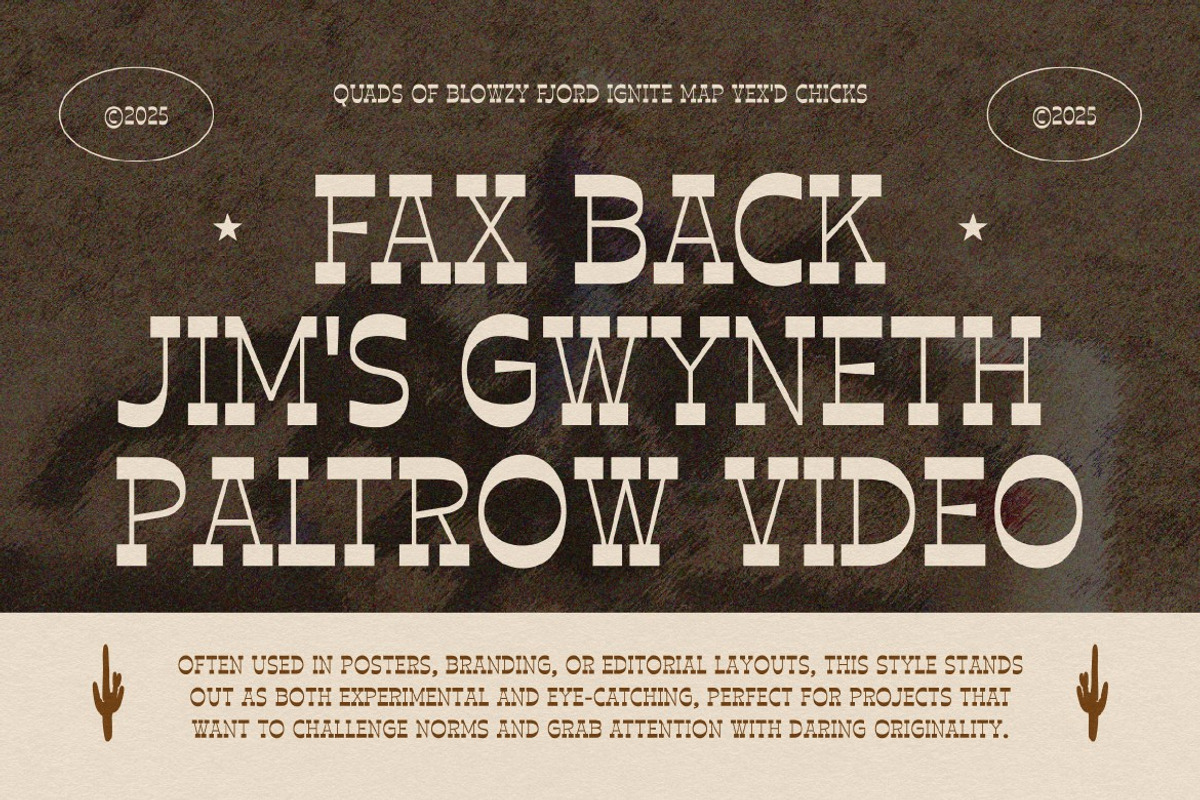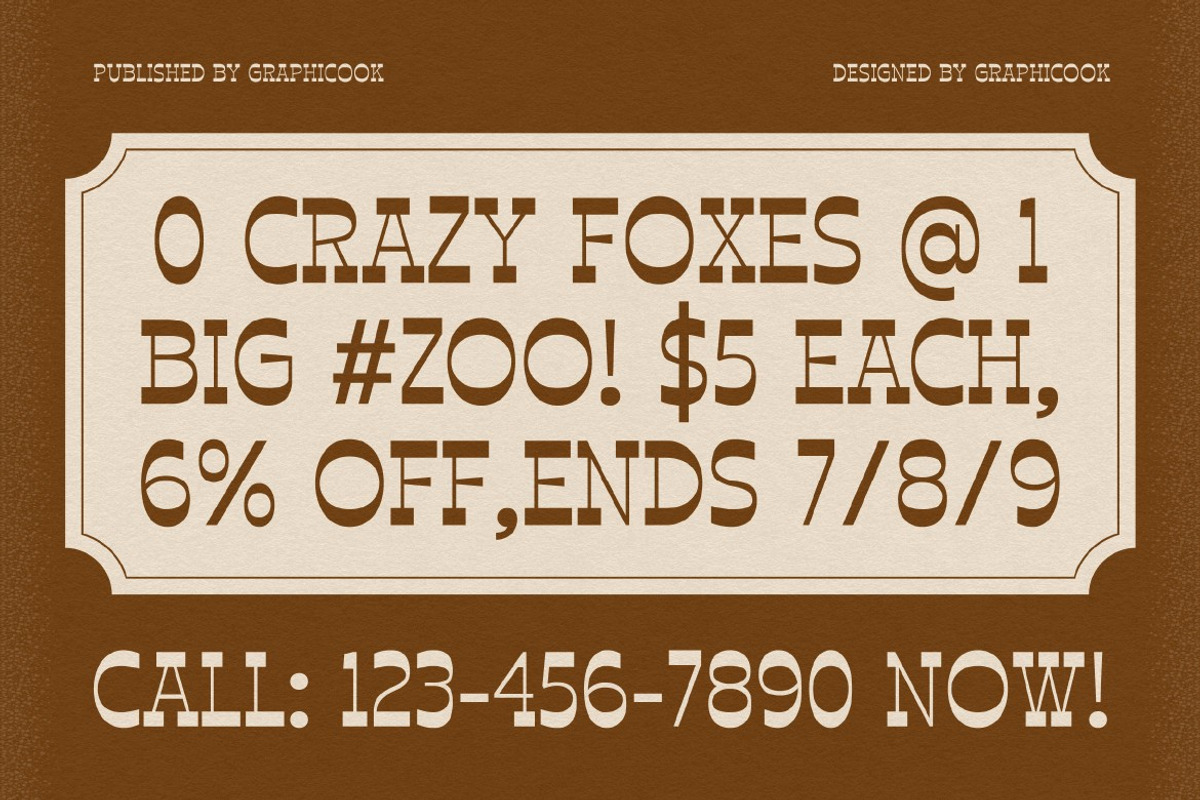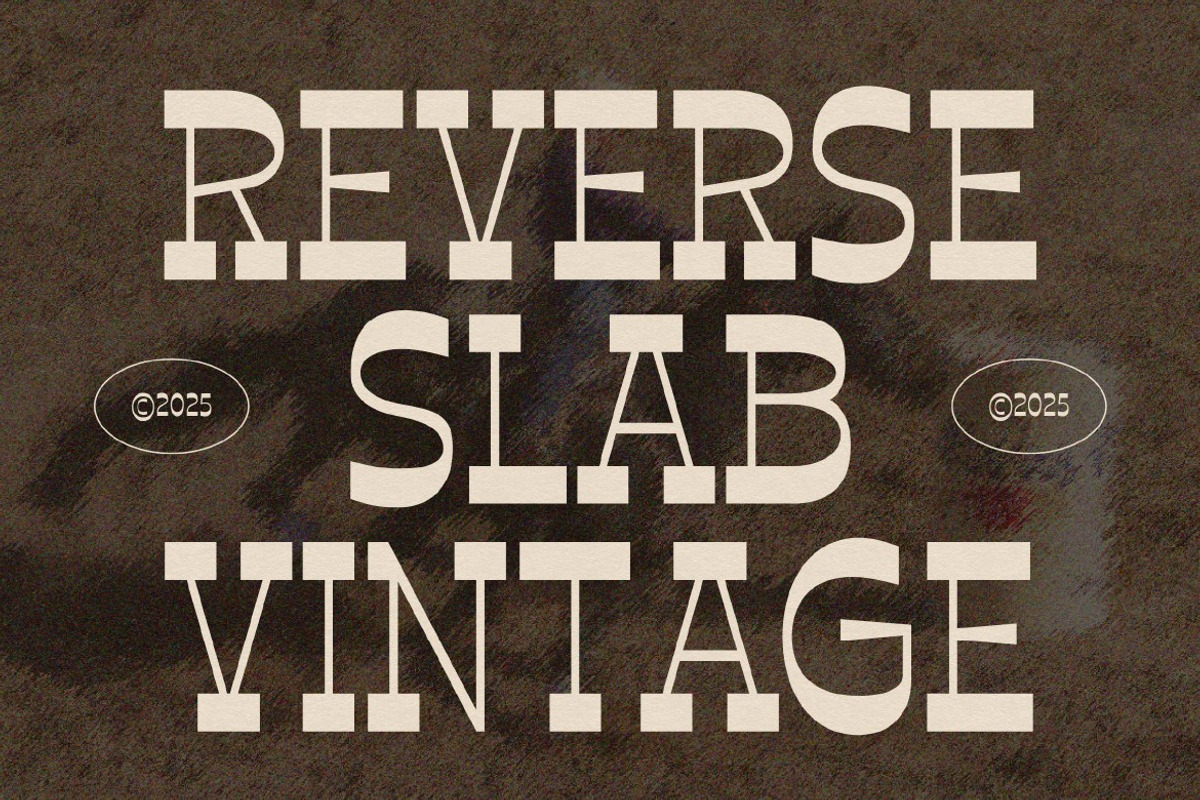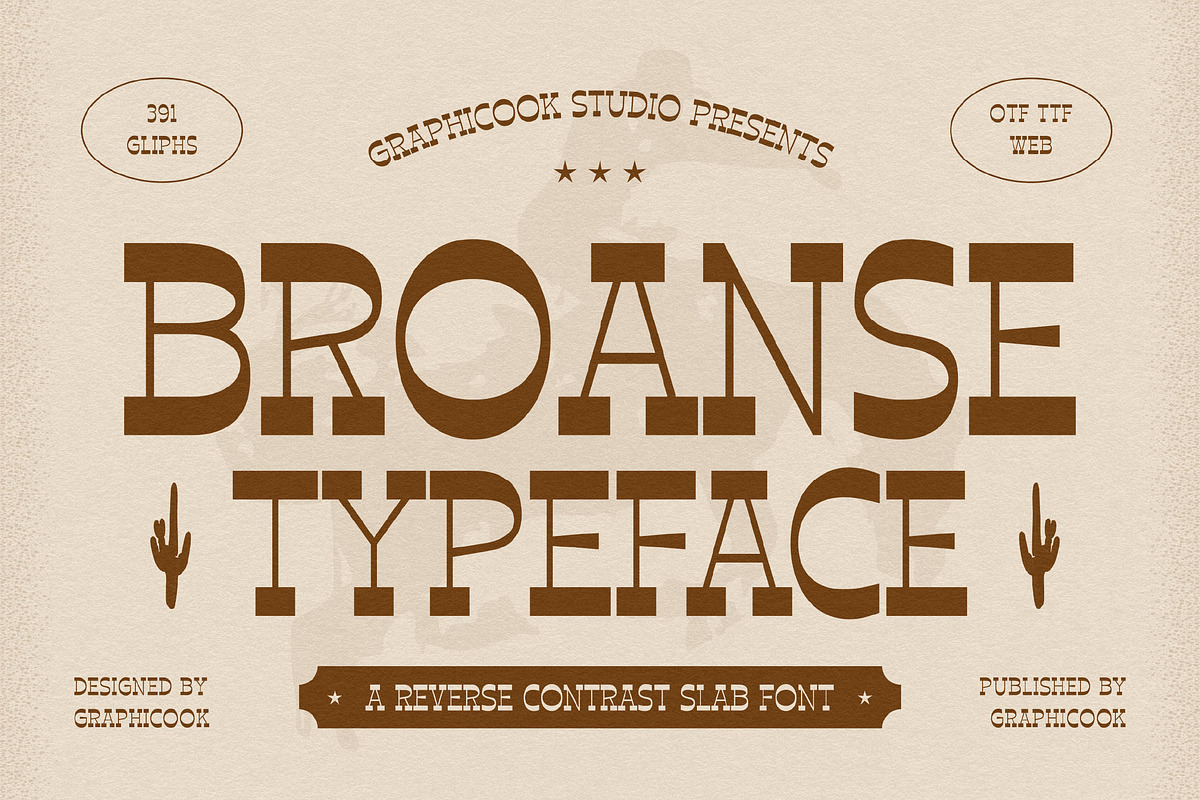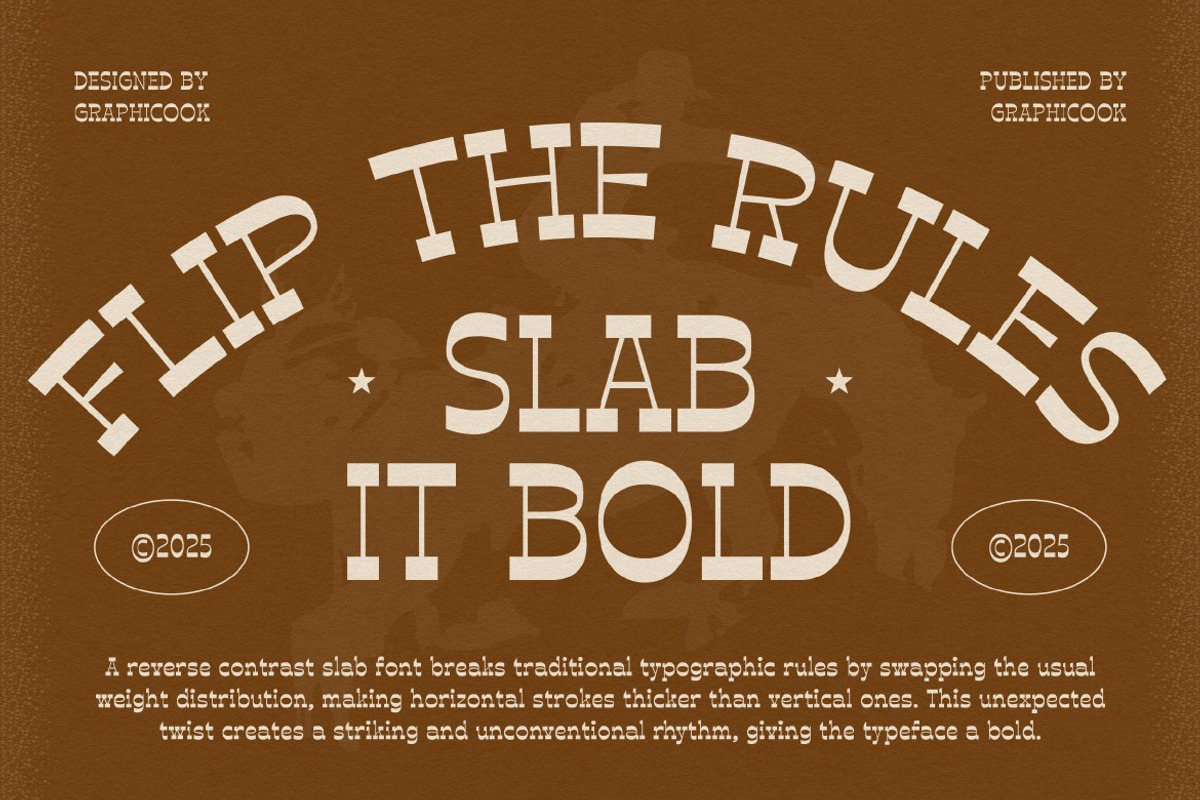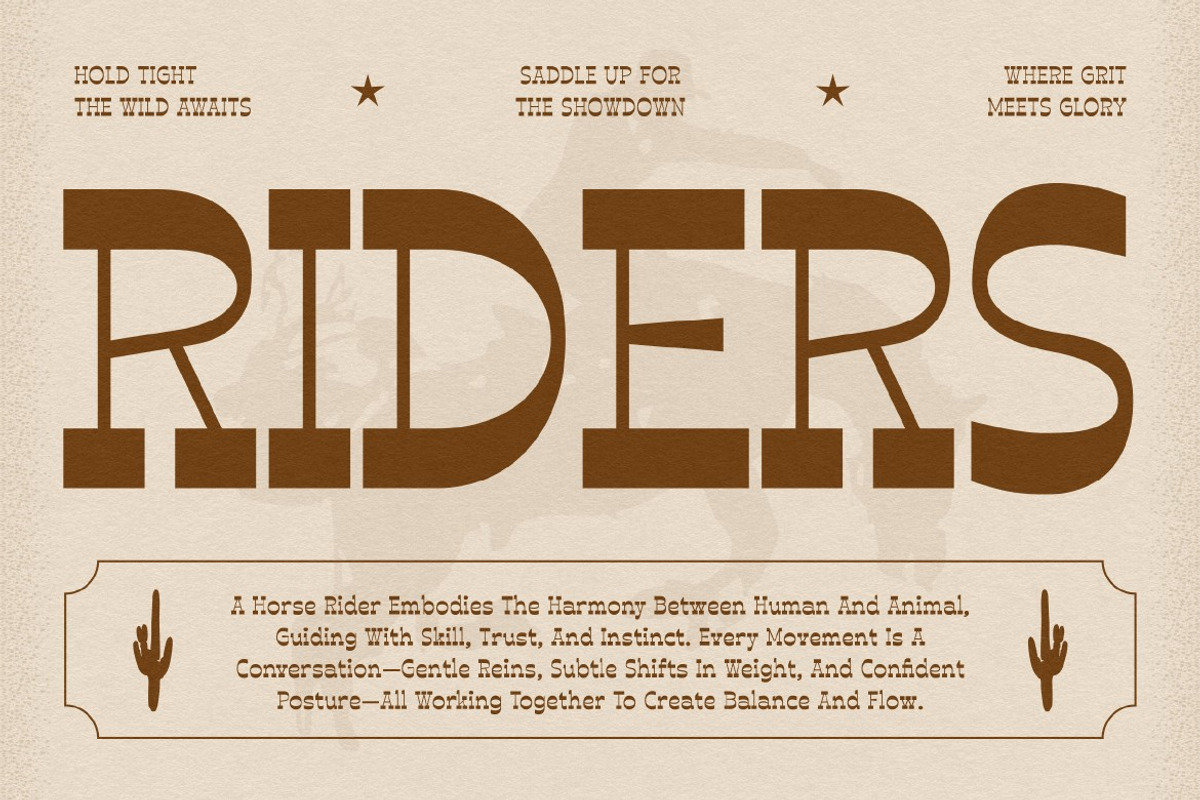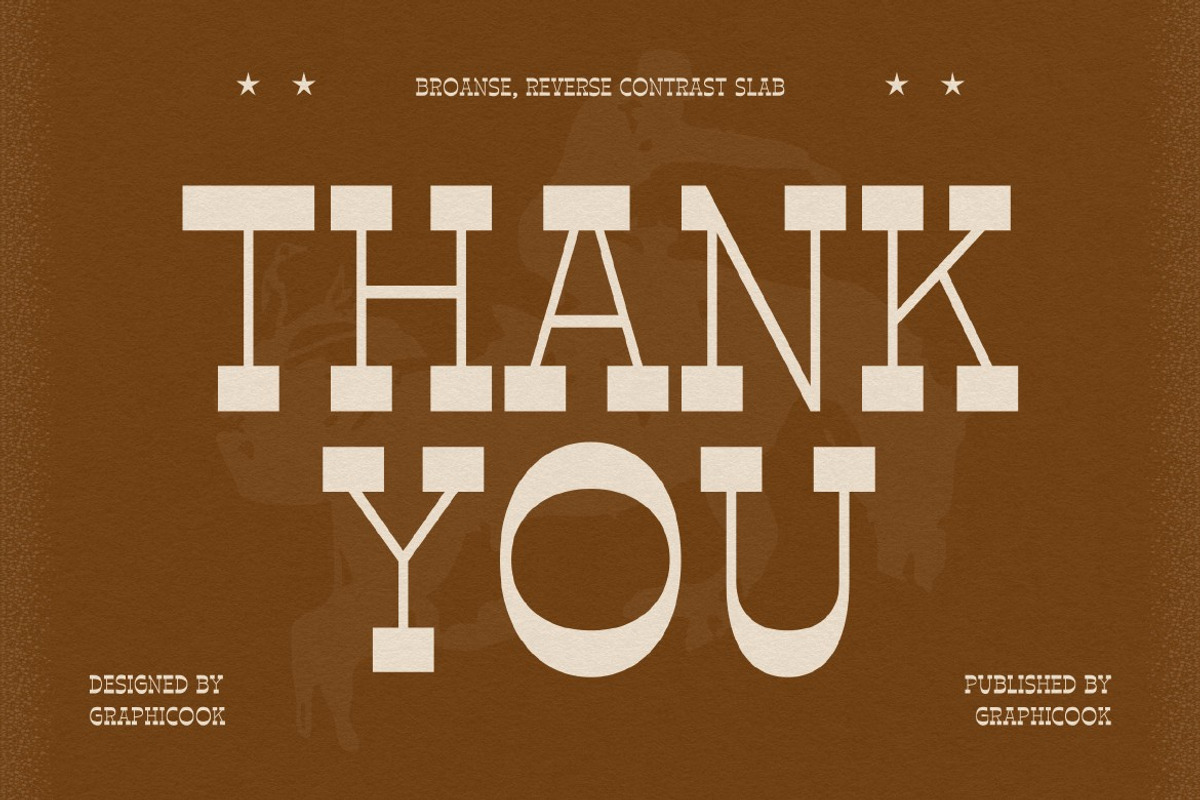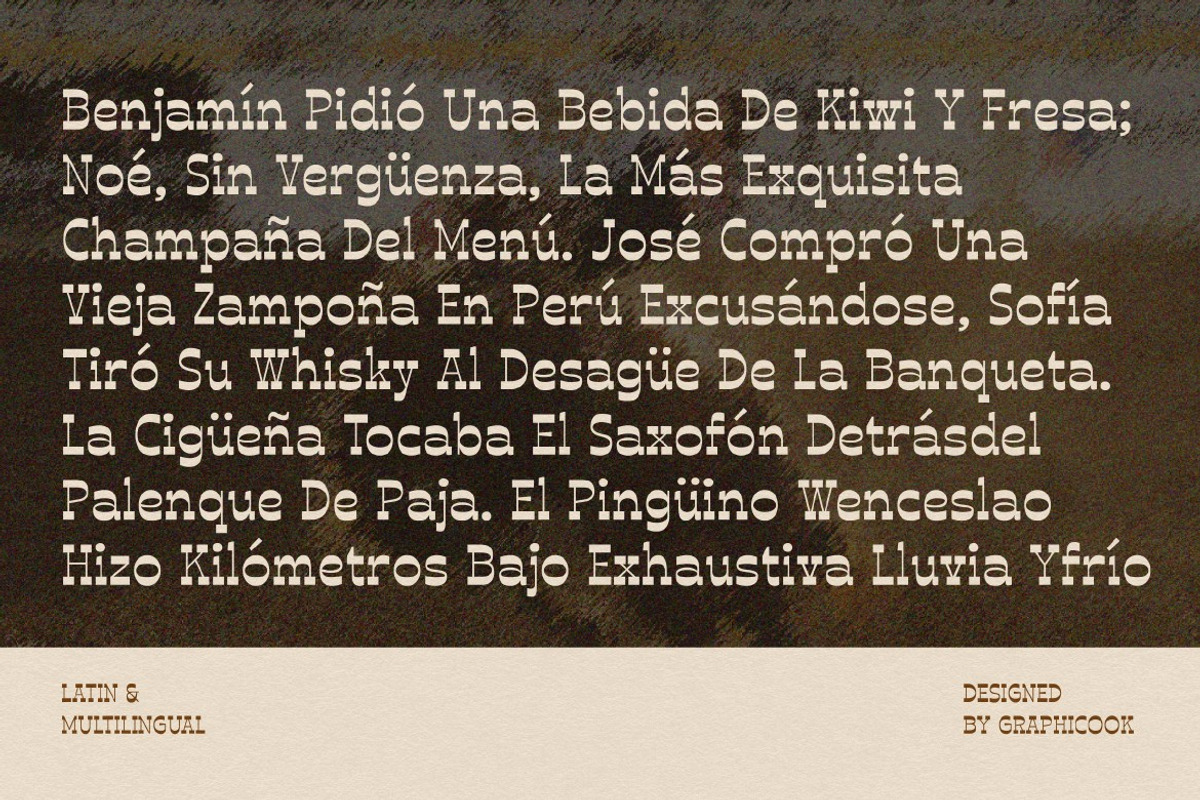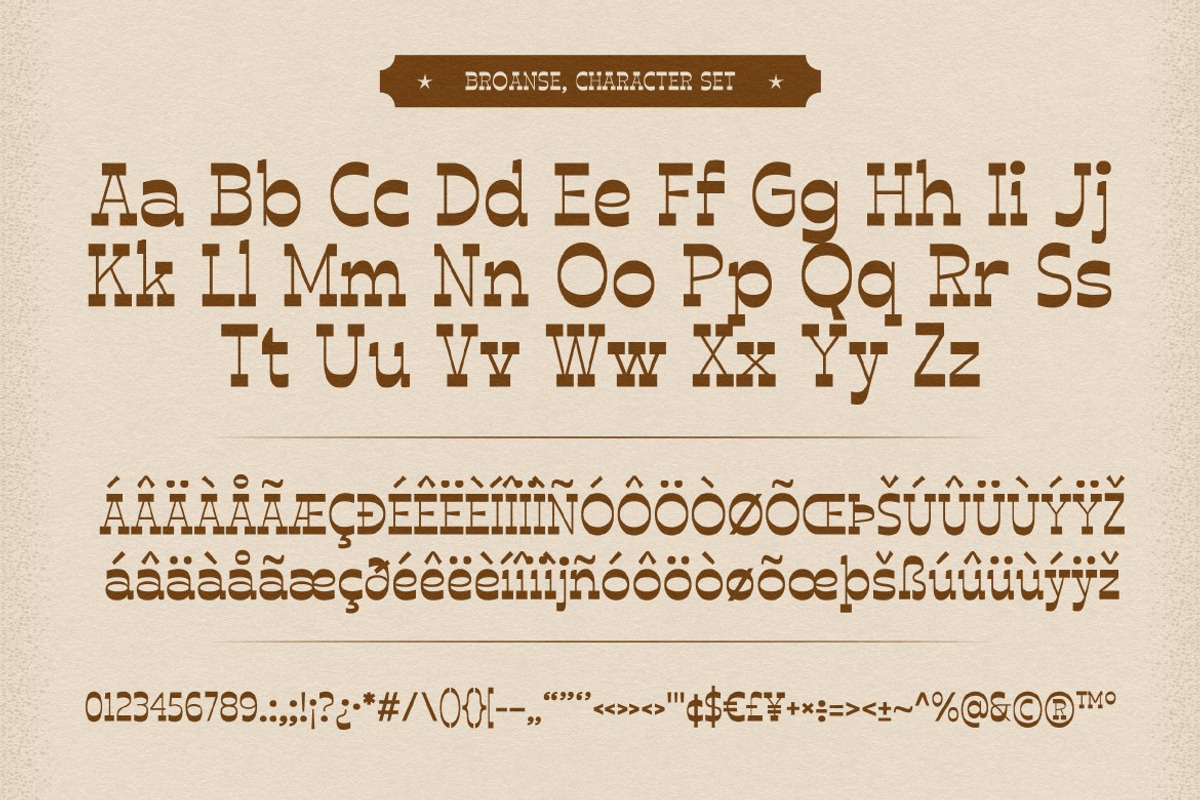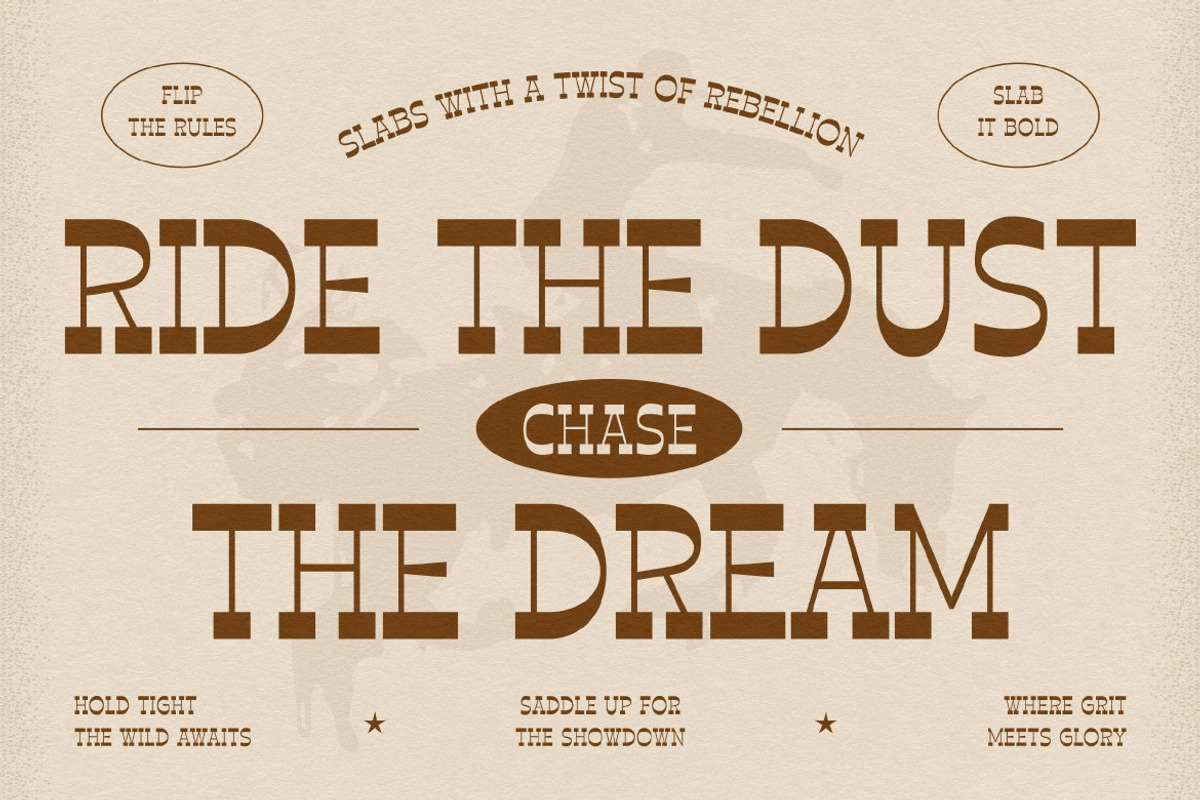
Broanse
Broanse is a slab-serif font featuring bold, Western-inspired letterforms. With thinner verticals and thicker horizontals, it offers a distinctive and eye-catching appearance—perfect for headlines, posters, and vintage-style packaging.
It is perfect for headlines, logotypes, magazines, packaging, quotes, movies, games, cover albums, book covers, and flyers, it's a perfect solution for creating eye-catching designs that stand out in any context.